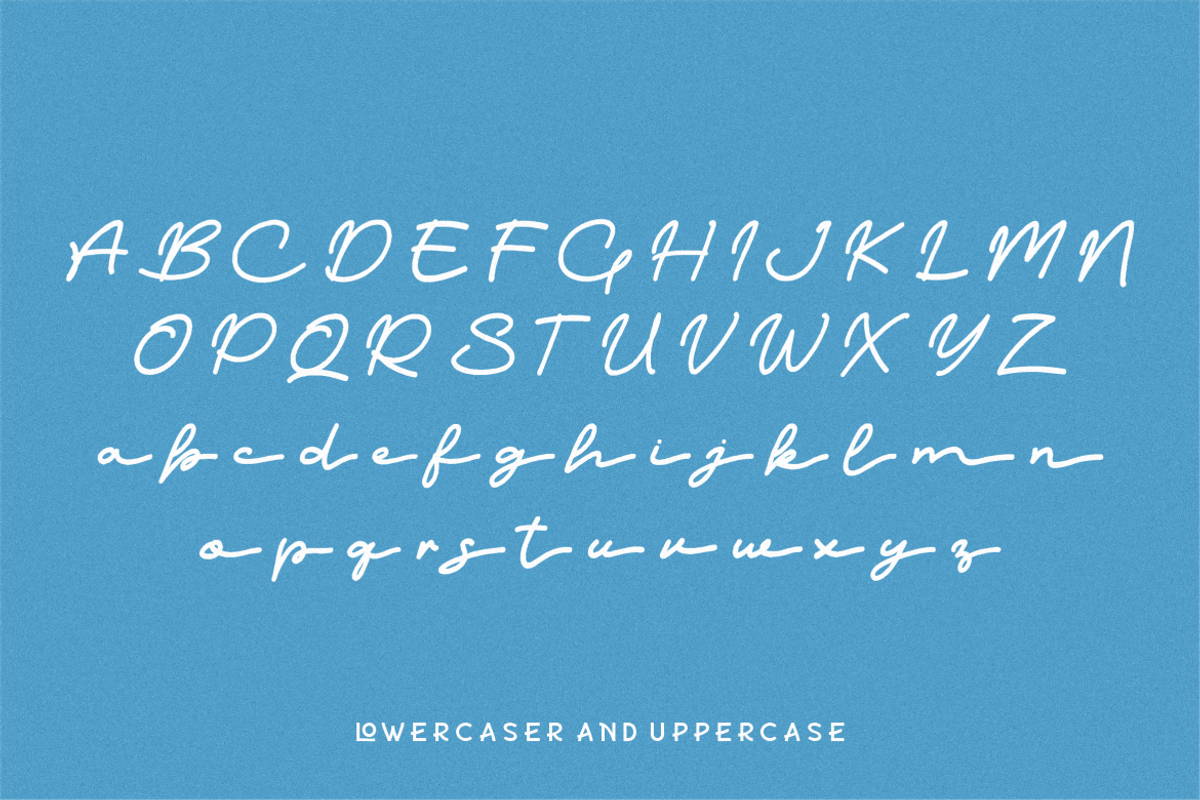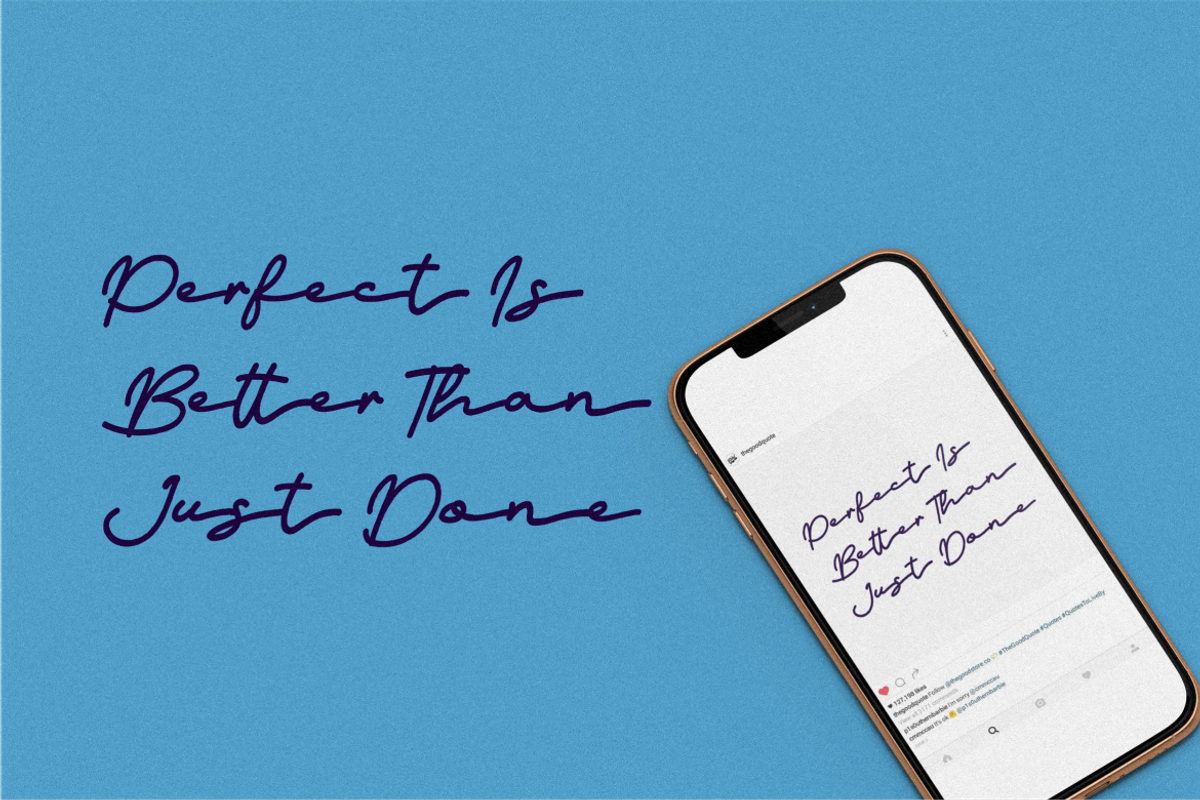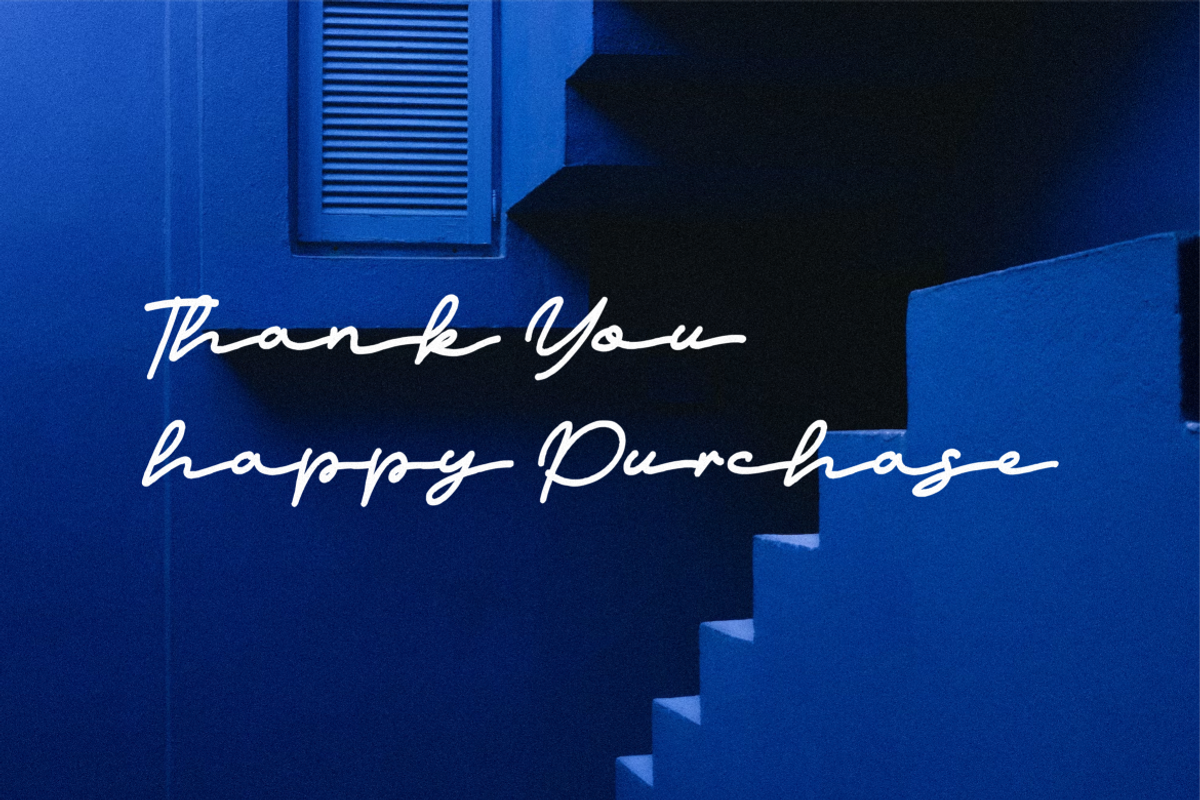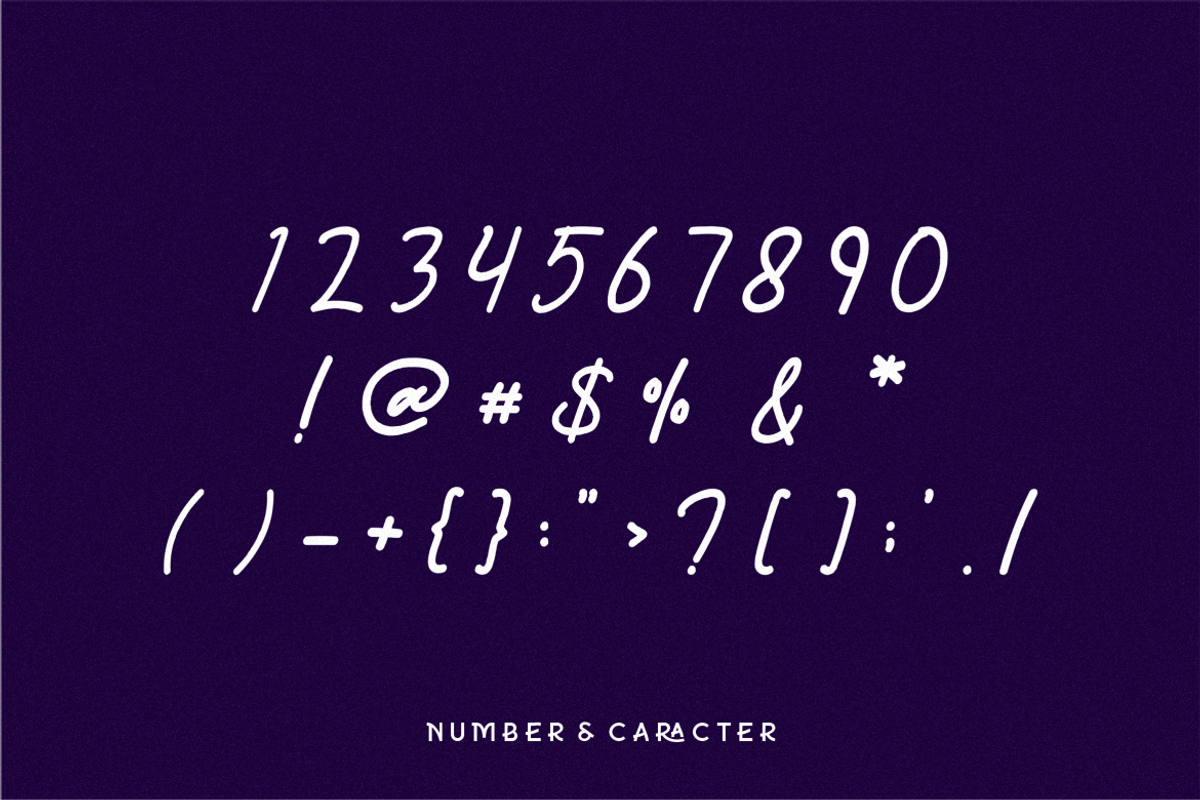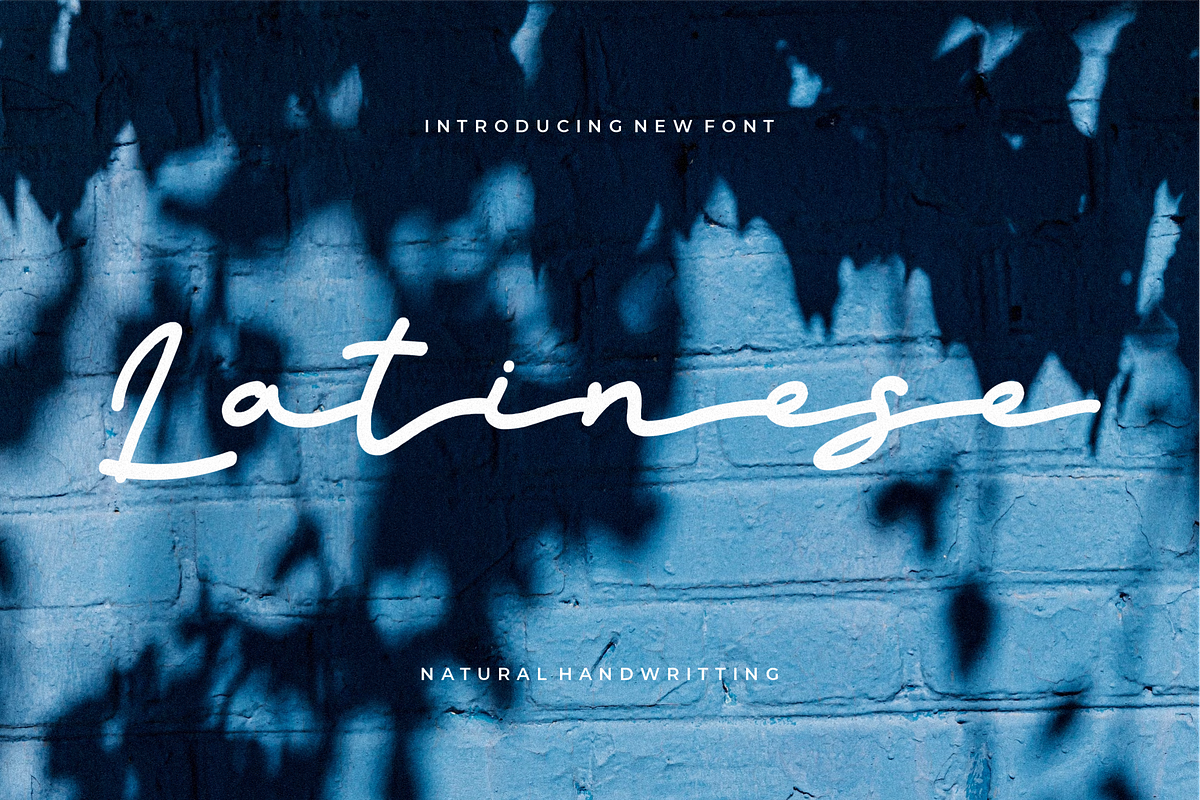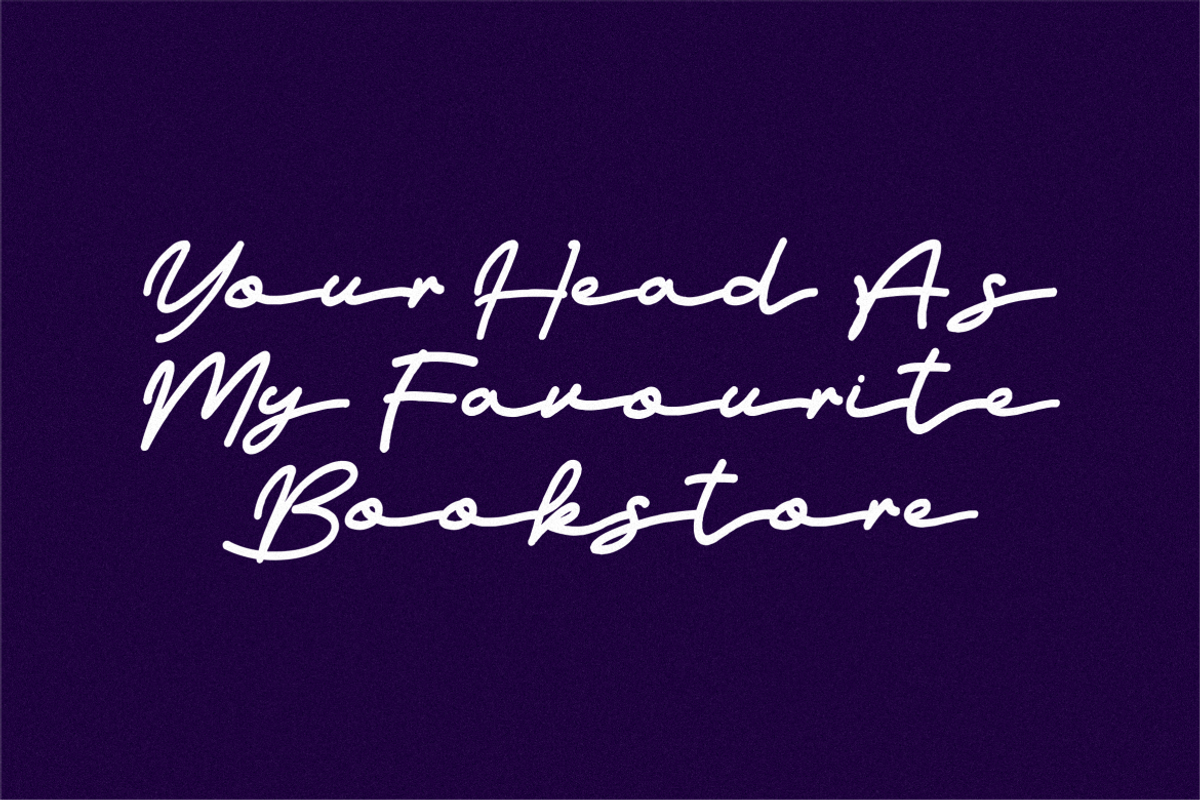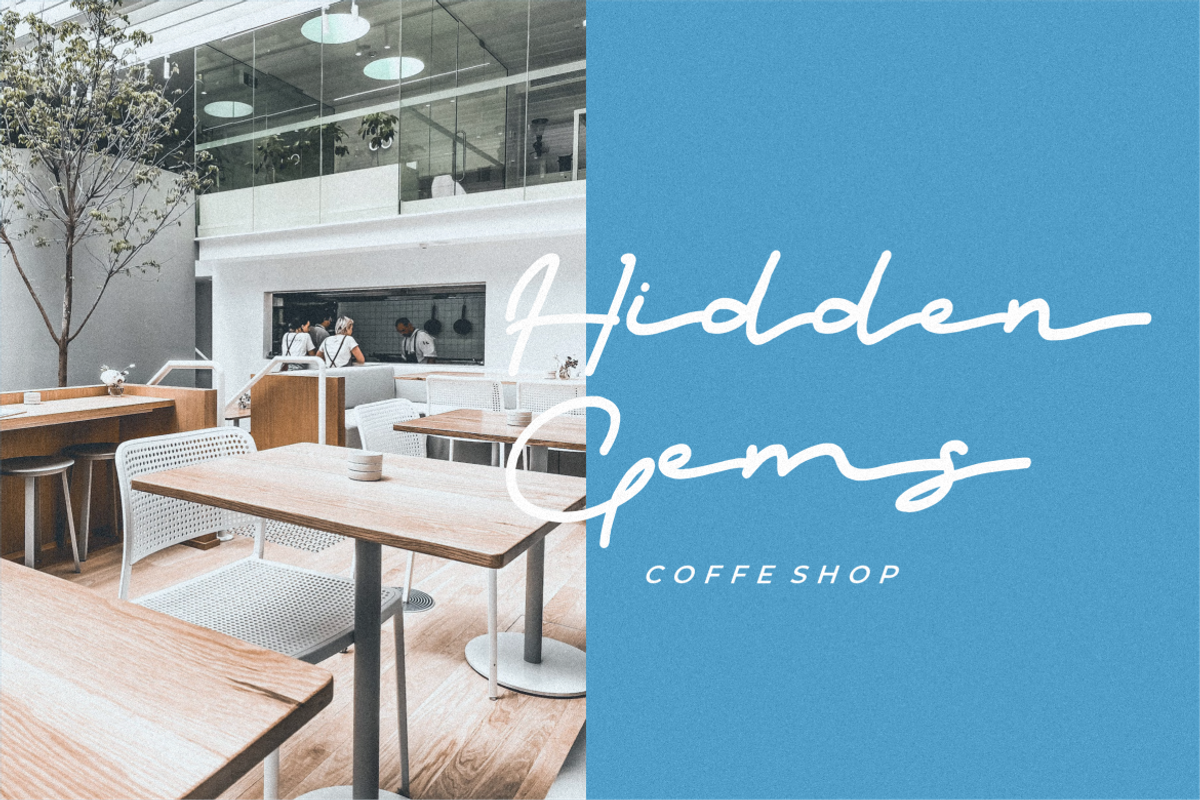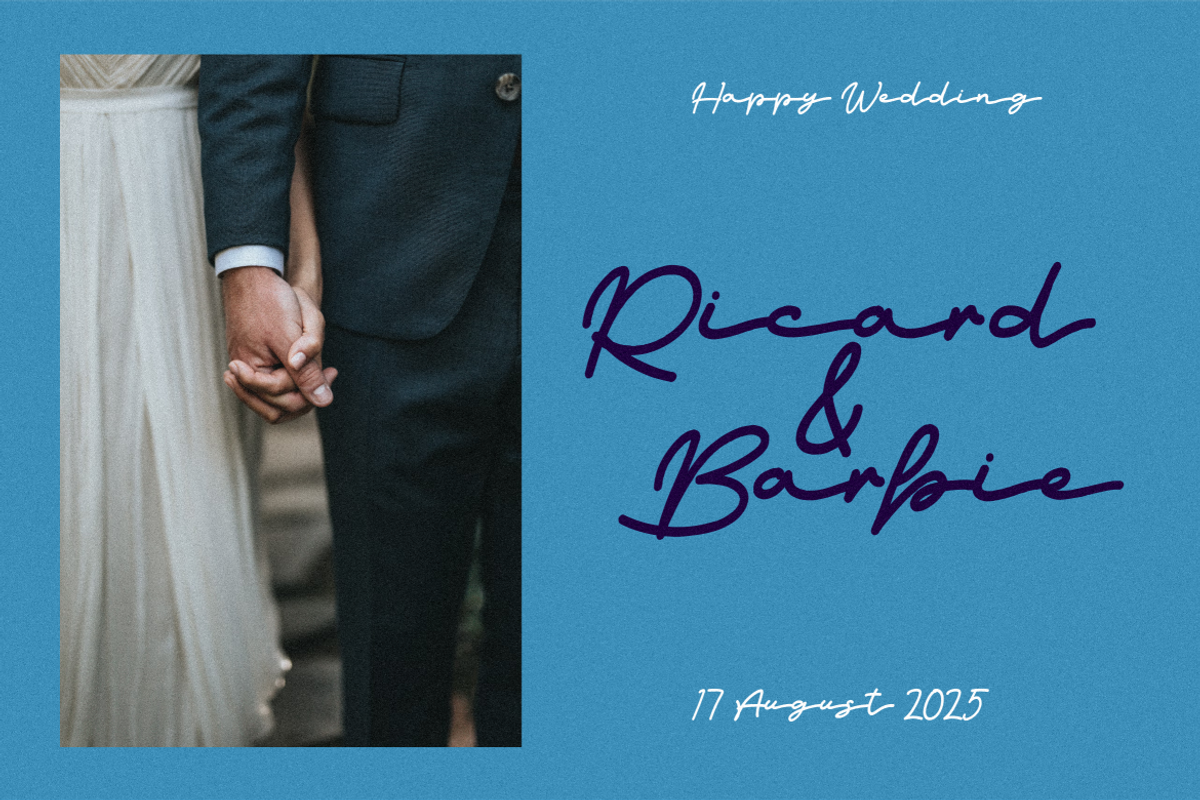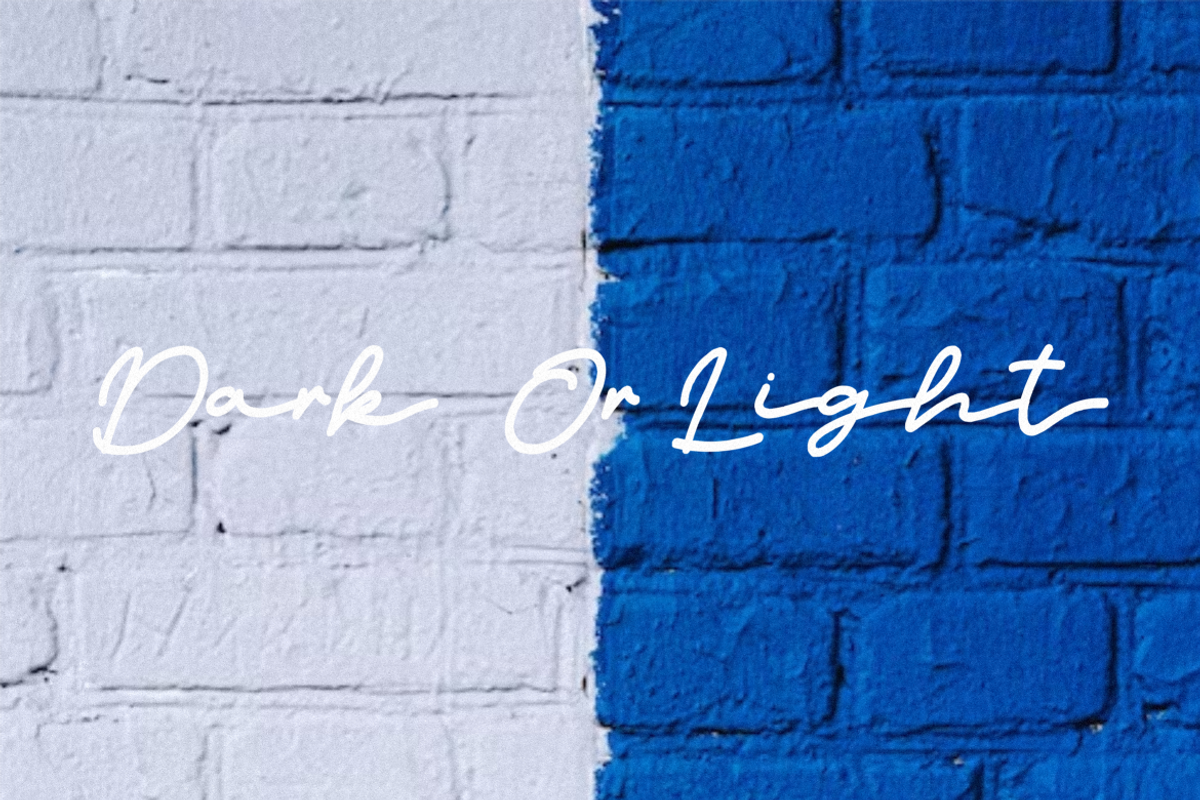
Latinese
Latinese is a handwritten script font with a pen and natural style, this font is great for your next creative projects such as watermark on photography, quotes, business card, and many other design project. Latinese comes with uppercase letters, lowercase letters, numbers and punctuation